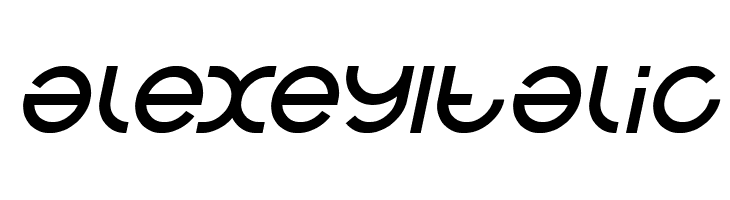
A playful, rounded font with smooth curves and a modern feel.
A playful, rounded font with a modern and friendly appearance.
A playful, rounded font with smooth curves and a friendly appearance.
A bold, rounded, and playful font with a modern and friendly style.
A playful, rounded font with a modern and friendly appearance.
A bold, rounded font with smooth curves and a friendly appearance.
A playful, rounded font with bold, smooth curves and a friendly appearance.
A playful, rounded, and modern sans-serif font with smooth curves.
A modern, rounded font with a friendly and approachable style.
A bold, rounded, and friendly font with a modern and approachable style.
A playful, rounded font with thick, bold strokes and smooth curves.